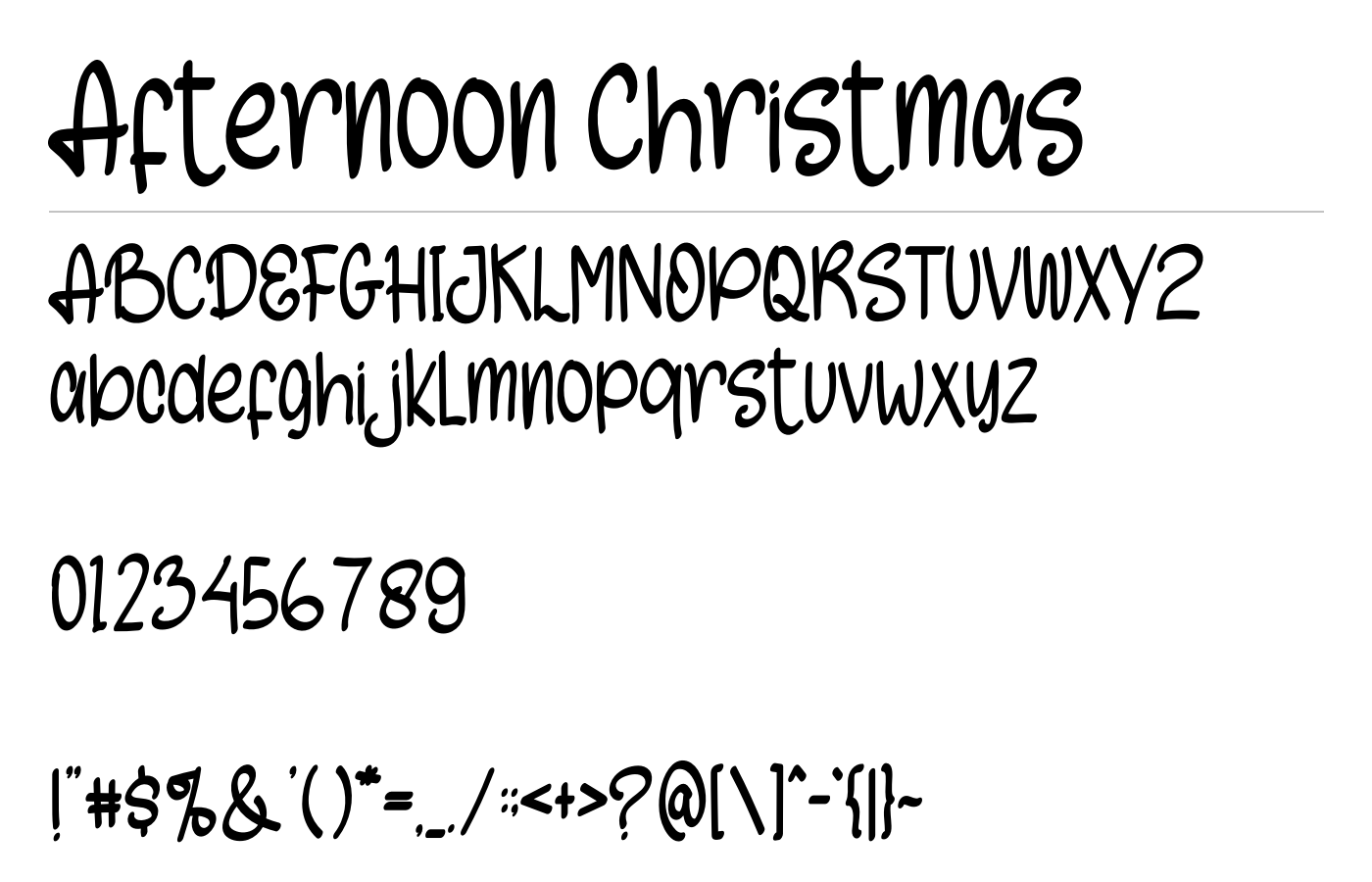
Afternoon Christmas is a playful, casual handwritten sans serif font with a narrow width and a moderately tall x-height that creates an approachable, energetic feel. Its uneven strokes and quirky letter shapes give it a friendly, informal personality, making it perfect for festive branding, greeting cards, children's designs, and any project seeking a cheerful, hand-crafted touch. This font shines in headlines and decorative uses where a warm, lively vibe is desired.
Afternoon Christmas Font